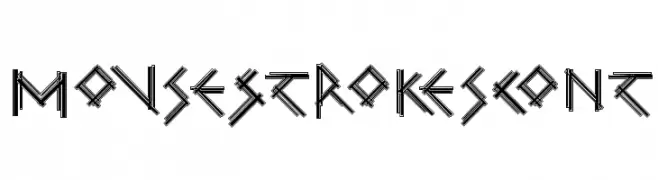
A decorative font featuring bird illustrations for each character.
Abstract symbols with geometric and star-like designs.
A collection of whimsical bird illustrations in various playful styles.
A geometric, futuristic font with intersecting lines and sharp angles.
A 3D abstract font with overlapping angular lines and a dynamic, edgy style.
A bold, playful typewriter-inspired font with rounded, irregular characters.
A modern oblique typewriter-style font with clean lines and excellent readability.
Cartoonish superhero-themed decorative font with illustrated character glyphs.
A bold, geometric font with characters enclosed in squares, featuring unique cutouts.
A bold, decorative Blackletter-style font with high contrast and intricate details.